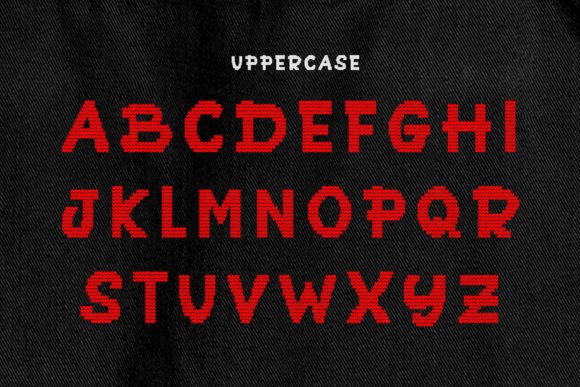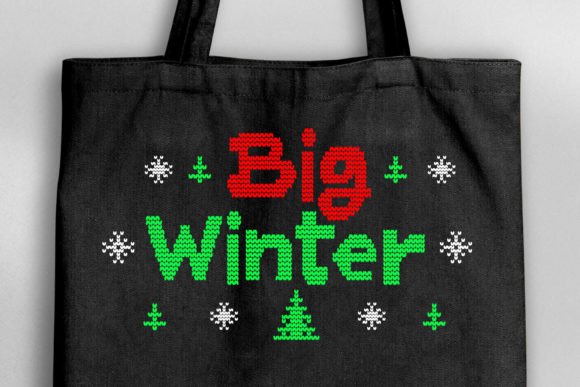
Coming Snow Font
Coming Snow Font is a Display font Christmas font that puts a twist on holiday designs. Each letter is decorated with stylish embroidery. Perfect for shirts, bags, hats, scarves and cards or anything to give as a Christmas gift.